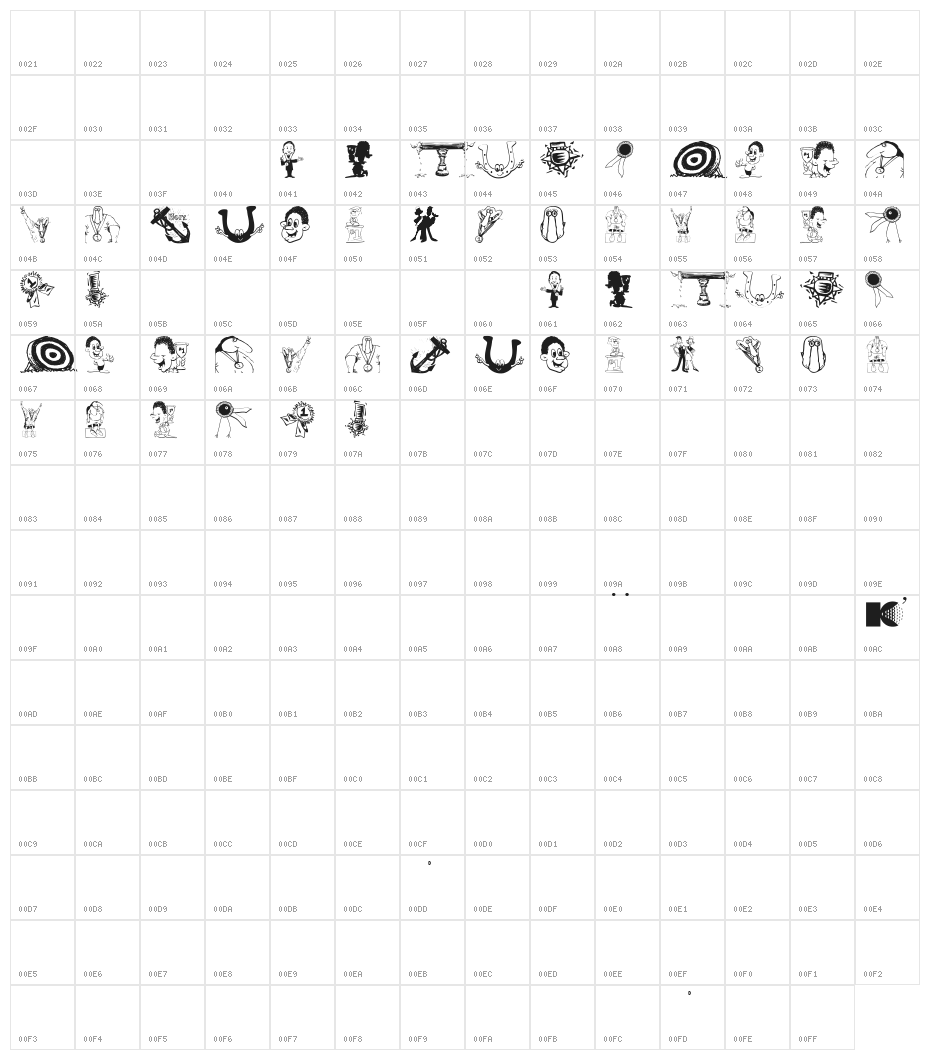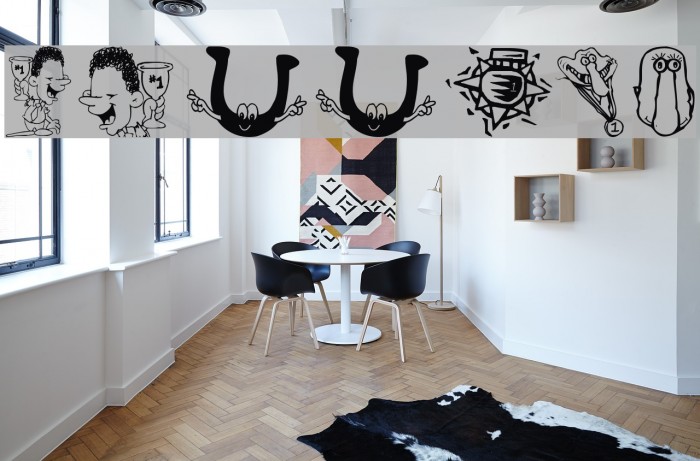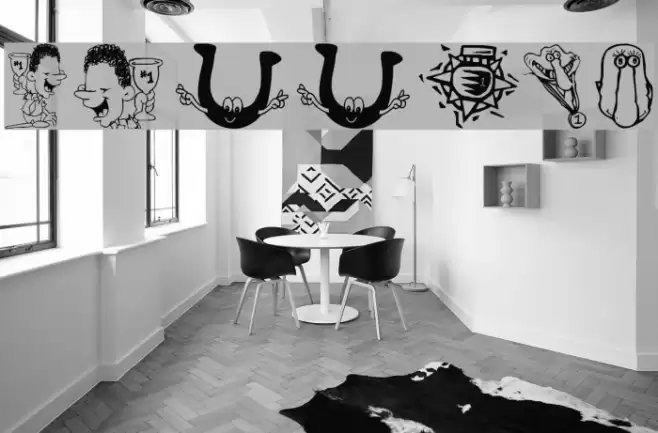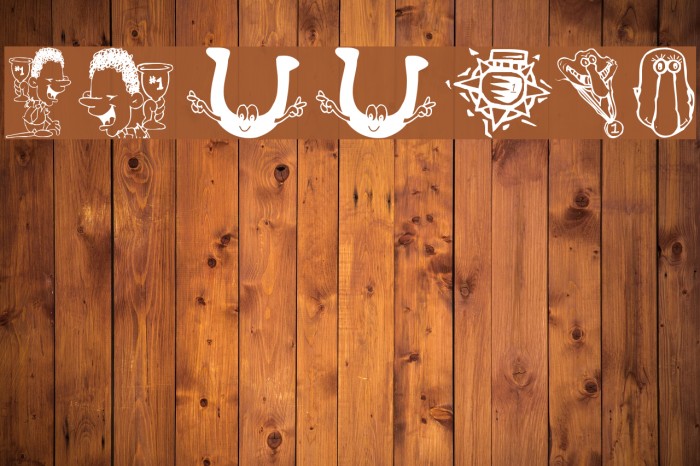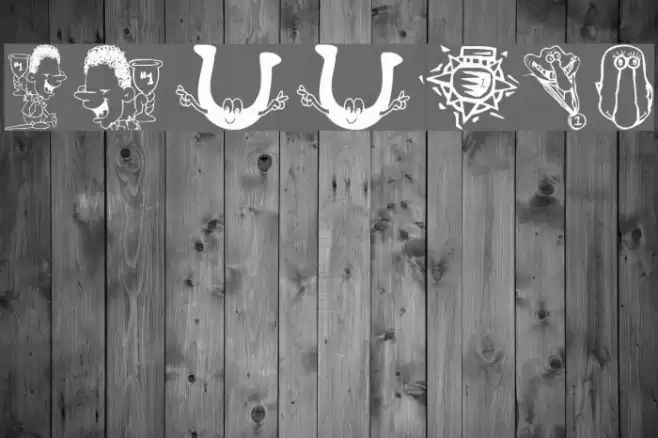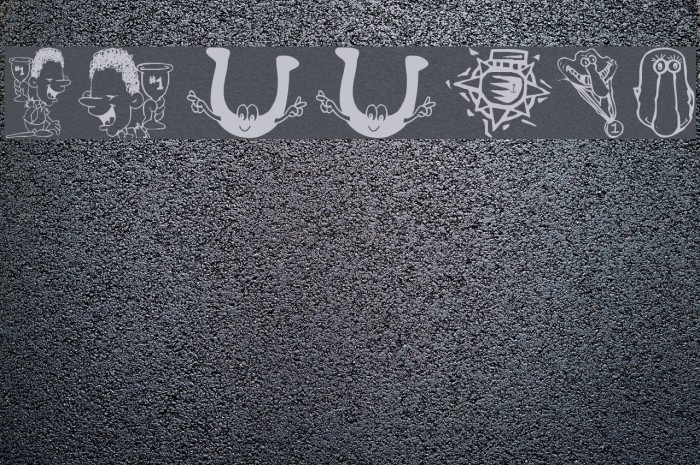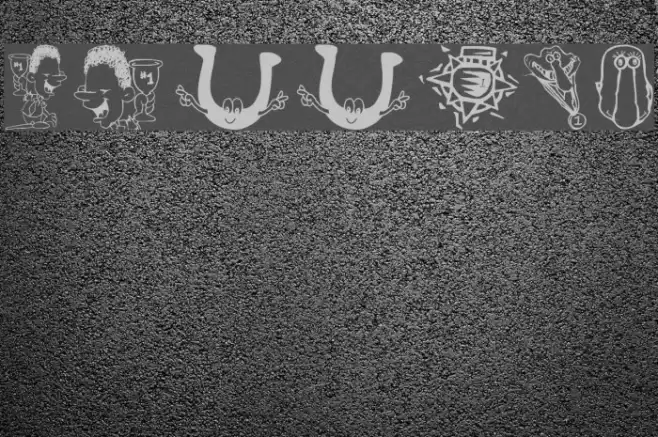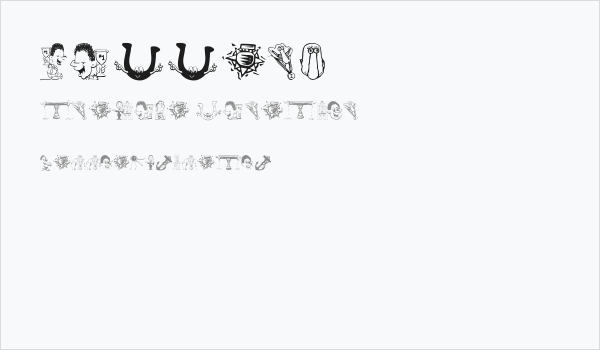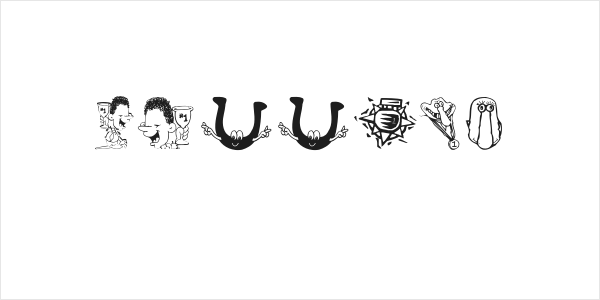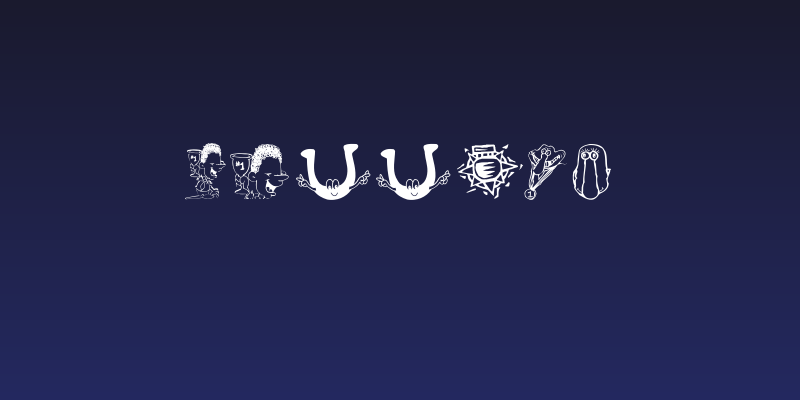
Winners Font
Winners Description
This font is a playful and whimsical collection of cartoon-style illustrations representing each character. Each letter and number is depicted as a unique, humorous drawing, often featuring exaggerated expressions and dynamic poses. The characters are highly detailed, with a variety of themes such as sports, awards, and celebrations. The style is reminiscent of classic comic strips, with bold outlines and a lively, energetic feel. This font is not meant for traditional text but rather for decorative purposes where each character acts as an individual piece of art.
| Use Case | Logos, Posters, Art projects |
| Proposed Projects | Ideal for children's books, playful posters, comic strips, or any project requiring a fun and artistic touch. |